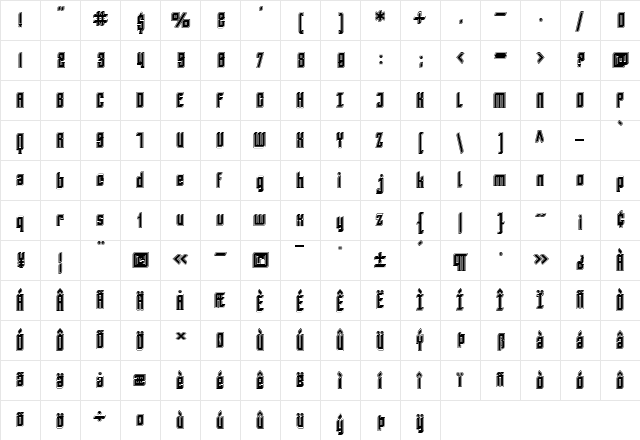
SF Piezolectric Inline Regular
| Foundry | ShyFoundry |
| Designer | Derek Vogelpohl |
Design Context for SF Piezolectric Inline Typeface
SF Piezolectric Inline brings ornamental detail and strong personality to headlines and identities, where visual impact matters more than quiet functionality.
Font Pairing: Pair with a clean neutral sans-serif for body copy to let SF Piezolectric Inline's character lead without overwhelming the composition.
Pro Tip: Treat SF Piezolectric Inline as the centrepiece of your typographic hierarchy. One strong heading set in a decorative face can carry an entire layout.